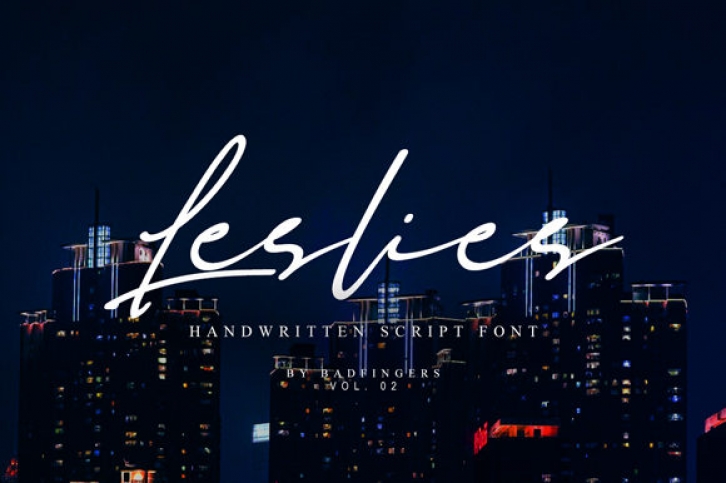
The Leslies is a stylish script font which comes in a regular and italic weight. It has a handwritten feel with clear lines and will add a natural touch to your designs.